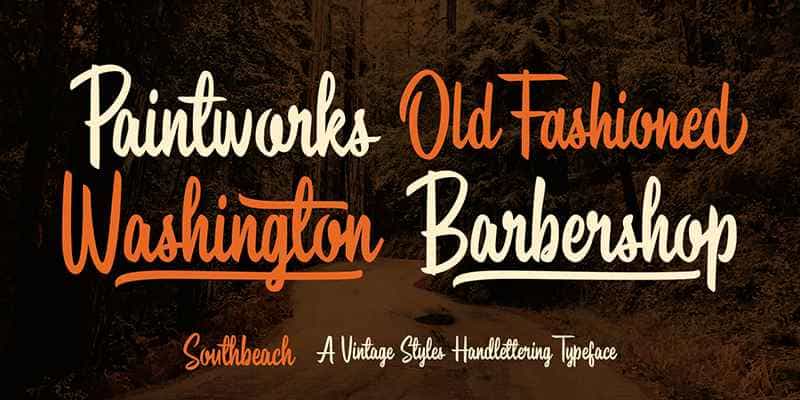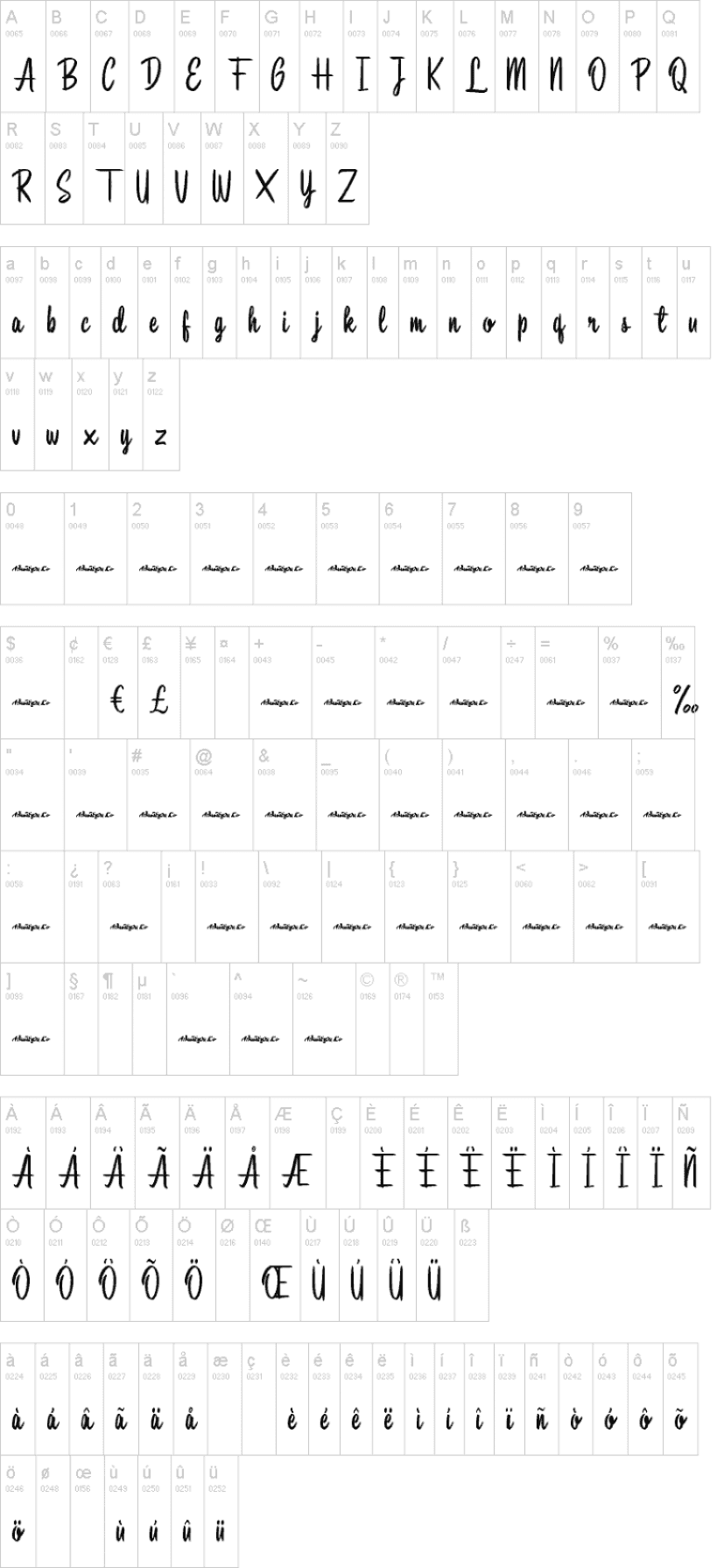
Actually, Wacaksara Co has planned Southbeach as a brush font that is a sort of a font closest to handwriting or drawing with a pen on paper and can be freely downloaded for personal use only. The free option is also equipped with the alphabet containing both the lower and uppercase versions and other special characters.